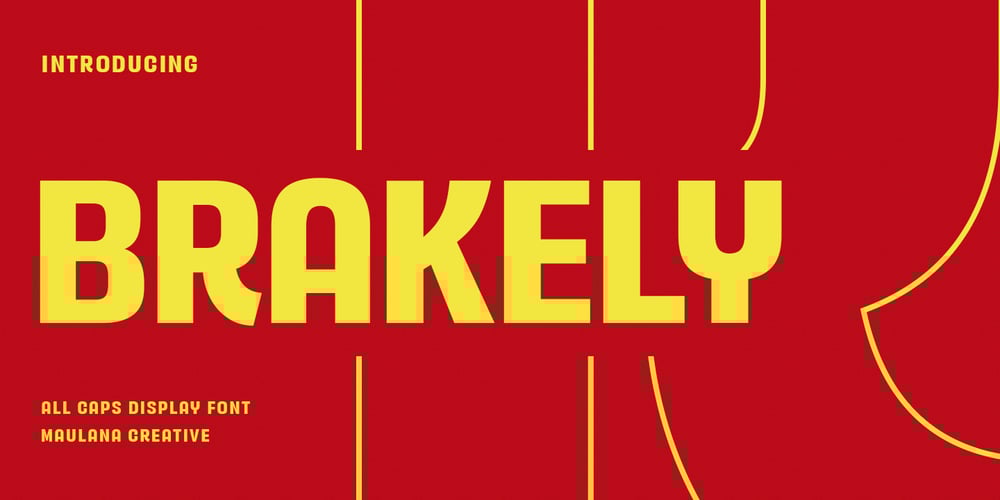
MC Brakely Font Family was designed by Gilang Maulana and published by Maulana Creative. MC Brakely contains 1 styles and family package options. Brakely is a semi humanist sans Display font. ExtraBold stroke, fun character with a bit of ligatures and alternates. To give you an extra creative work. Brakely font support multilingual more than 100+ language. This font is good for logo design, Social media, Movie Titles, Books Titles, a short text even a long text letter and good for your secondary text font with script or serif. Make a stunning work with Brakely font. Cheers, Maulana Creative